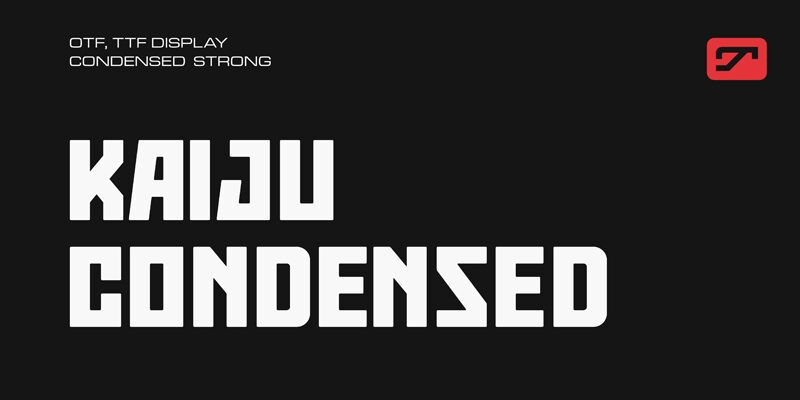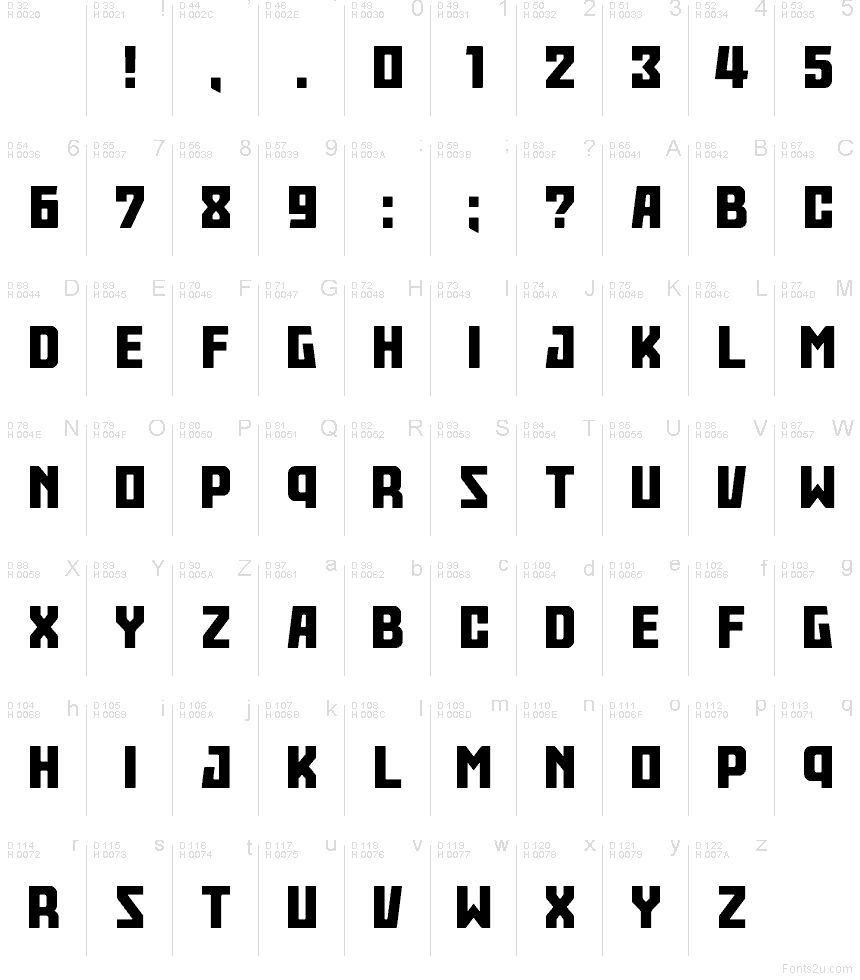
Kaiju Condensed
Kaiju Condensed font by Typologic is a free techno display typeface that looks like it was carved from steel and dropped into a neon city. Its ultra-condensed width, squared counters, and chunky, chiseled curves pack a loud, industrial punch even in tight spaces, so headlines feel massive without eating the whole layout. The rhythm is rigid and mechanical, giving every word a stomped-in, monster-sized presence.
Using Kaiju Condensed, you can slam impact into game logos, movie titles, esports branding, sci-fi posters, event flyers, and bold merch graphics. This free font thrives at large sizes where its sharp angles and compact forms can really shout. For supporting copy, pair it with a clean, open sans-serif set smaller and lighter to keep Kaiju’s heavy, condensed letterforms roaring on center stage.